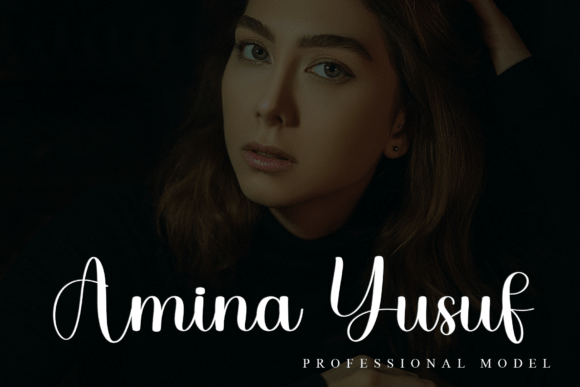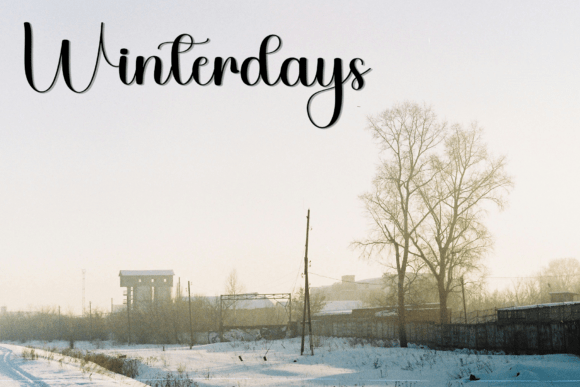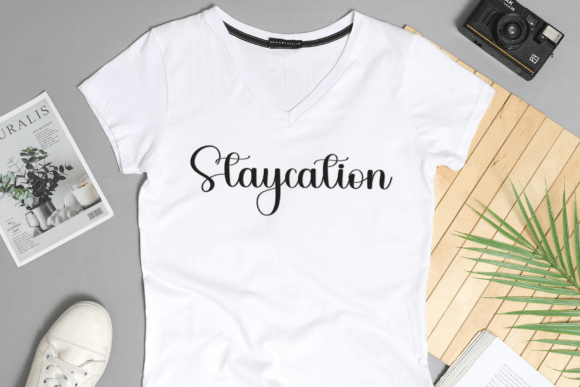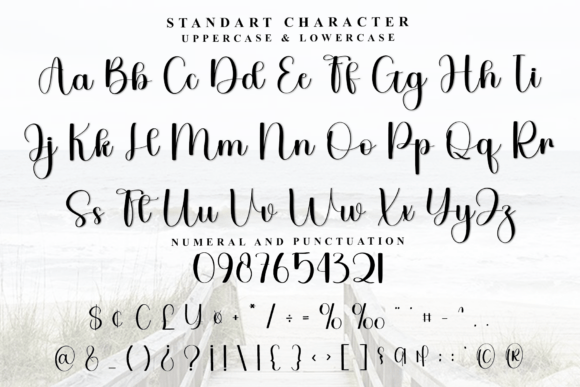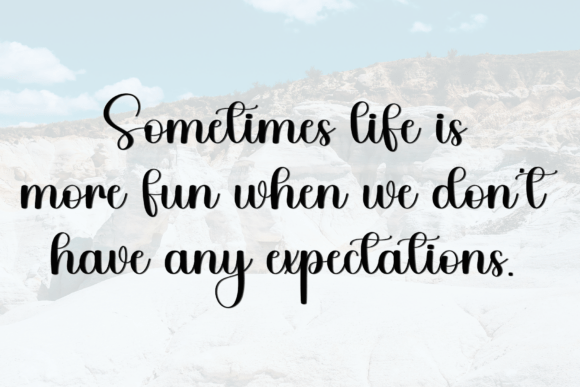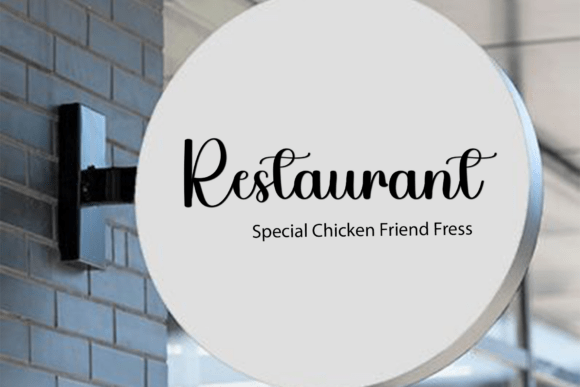
Introducing Crystal Christmas Font: A Festive and Merry Typeface for the Holiday Season
The holiday season is upon us, and what better way to get into the spirit than with a beautiful and festive font to adorn your designs? Look no further than the Crystal Christmas Font, a merry and decorative typeface that captures the magic of Christmas. With its whimsical flair and enchanting elements, this font is perfect for adding a touch of nostalgia and cheer to your holiday-themed projects.
A Festive Font for Your Holiday Designs
Crystal Christmas Font is a stunning and versatile typeface that can be used for a variety of holiday-themed designs, including greeting cards, gift tags, and festive posters. Its decorative elements and whimsical flair make it perfect for adding a touch of enchantment to your words, and its clear and legible design ensures that your message will be conveyed with ease.
Whether you’re a designer, crafter, or DIY enthusiast, Crystal Christmas Font is the perfect addition to your typography collection. Its festive and merry design is sure to bring a smile to the faces of your friends and family, and its ease of use makes it accessible to crafters of all skill levels.
Key Features of Crystal Christmas Font
- PUA Encoded: Crystal Christmas Font is PUA encoded, which means that you can access all of the amazing glyphs and ligatures with ease. This makes it simple to add decorative elements to your designs, and ensures that your typography looks its best.
- Decorative Elements: The font features a range of decorative elements, including snowflakes, holly, and other festive motifs. These elements can be used to add a touch of whimsy and enchantment to your designs.
- Whimsical Flair: Crystal Christmas Font has a playful and whimsical design that captures the spirit of the holiday season. Its curly and swirly lines add a touch of nostalgia and cheer to your typography.
- Clear and Legible: Despite its decorative elements, Crystal Christmas Font is clear and legible, making it perfect for use in a variety of designs.
Uses for Crystal Christmas Font
Crystal Christmas Font is a versatile typeface that can be used for a variety of holiday-themed designs, including:
- Greeting Cards: Add a touch of festive cheer to your holiday greeting cards with Crystal Christmas Font.
- Gift Tags: Use Crystal Christmas Font to create beautiful and decorative gift tags that will add a personal touch to your gifts.
- Holiday Posters: Create stunning holiday posters with Crystal Christmas Font, featuring decorative elements and whimsical flair.
- Social Media Graphics: Add a touch of festive cheer to your social media graphics with Crystal Christmas Font, perfect for holiday promotions and announcements.
Why Choose Crystal Christmas Font?
There are many festive fonts available, but Crystal Christmas Font stands out for its unique combination of decorative elements, whimsical flair, and clear and legible design. Here are just a few reasons why you should choose Crystal Christmas Font for your holiday designs:
- Unique Design: Crystal Christmas Font has a unique and eye-catching design that will set your holiday designs apart from the crowd.
- Ease of Use: The font is PUA encoded, making it easy to access all of the amazing glyphs and ligatures.
- Versatility: Crystal Christmas Font can be used for a variety of holiday-themed designs, from greeting cards to social media graphics.
Crystal Christmas Font is a beautiful and festive typeface that captures the spirit of the holiday season. With its decorative elements, whimsical flair, and clear and legible design, it’s perfect for adding a touch of enchantment to your holiday designs. Whether you’re a designer, crafter, or DIY enthusiast, Crystal Christmas Font is a must-have addition to your typography collection. So why wait? Download Crystal Christmas Font today and let your typography shine with the magic of the holiday season!